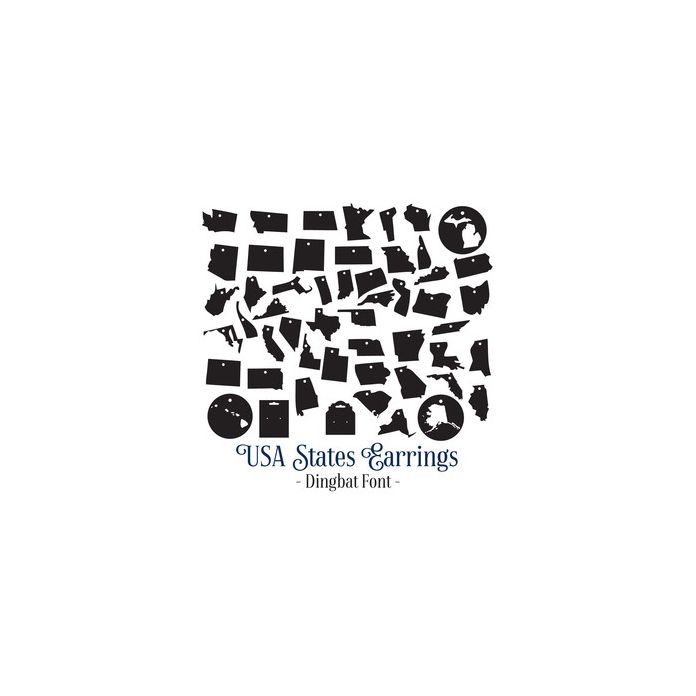
USA States Earrings Dingbat Font. Contains all 50 states as individual earrings and 2 backer cards with euroslot at the top. All allocated to upper and lower case and can be accessed via glyphs. My other fonts can be found here in the Silhouette store!